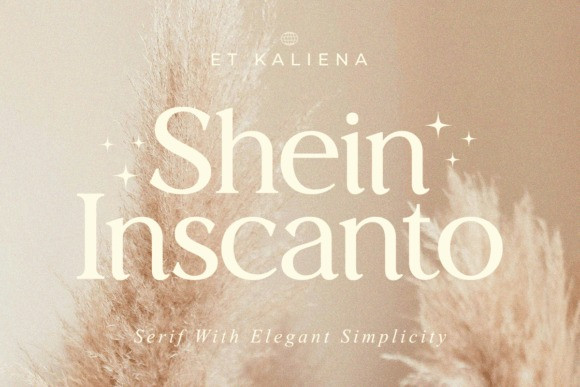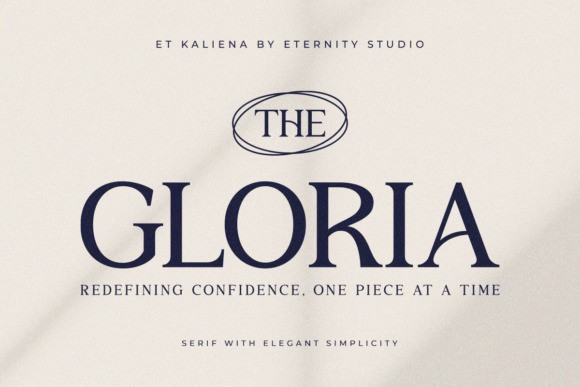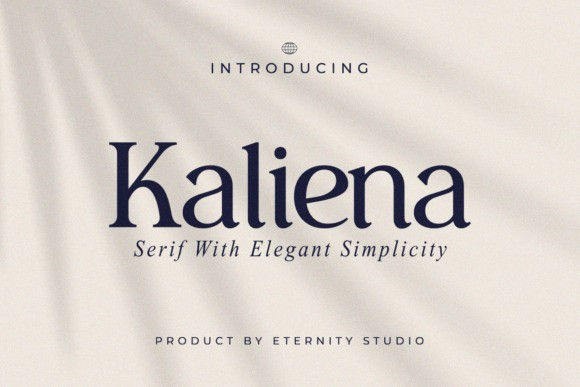
Kaliena Font
Kaliena Font is a timeless and luxurious serif font designed for high-end branding and elegant design projects. Its clean lines and balanced forms deliver an aura of sophisticated simplicity and professionalism.